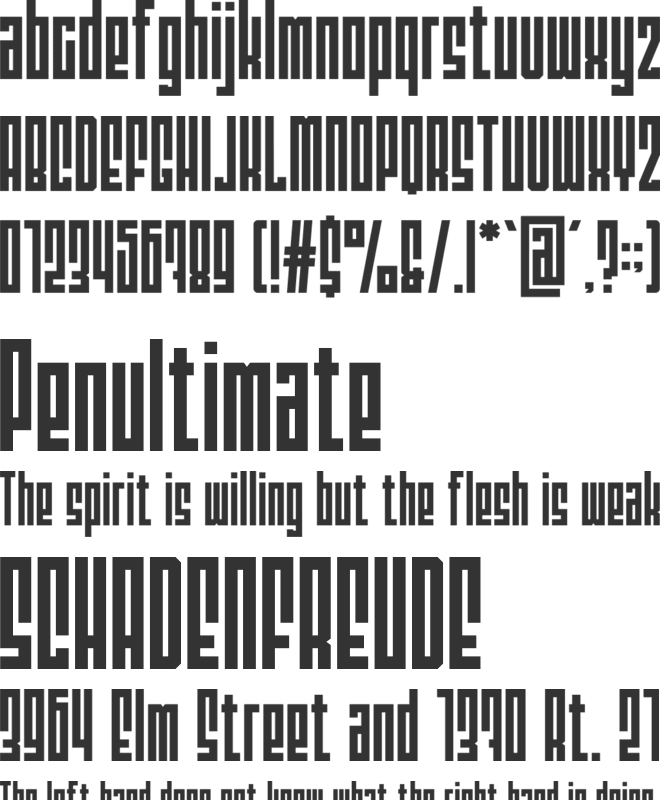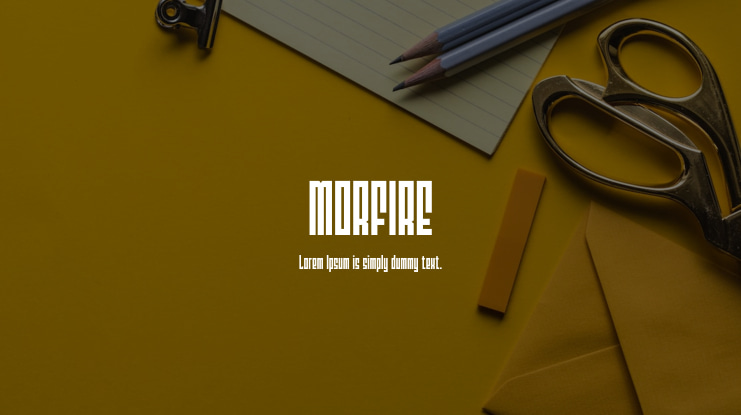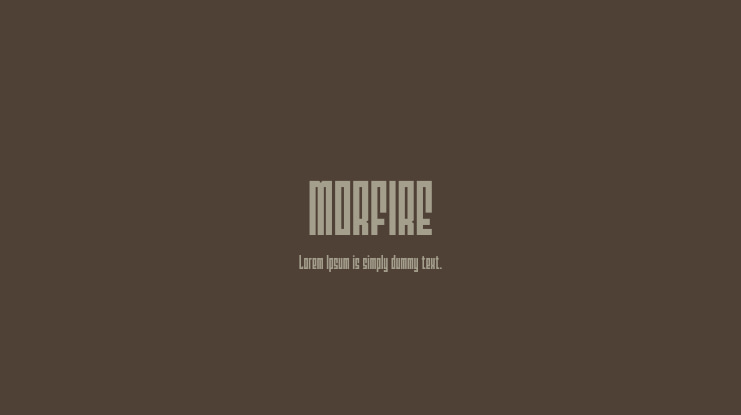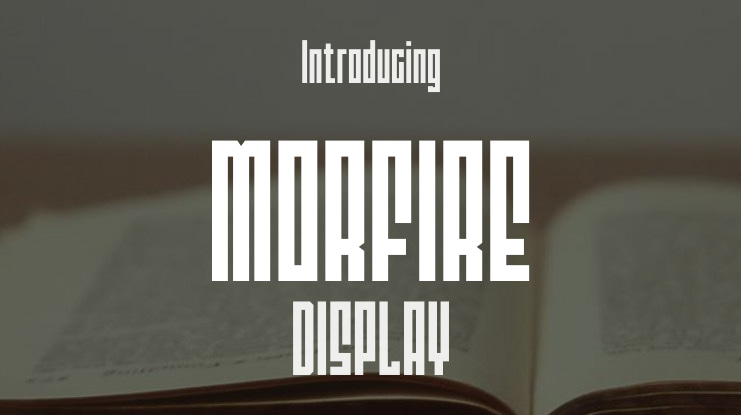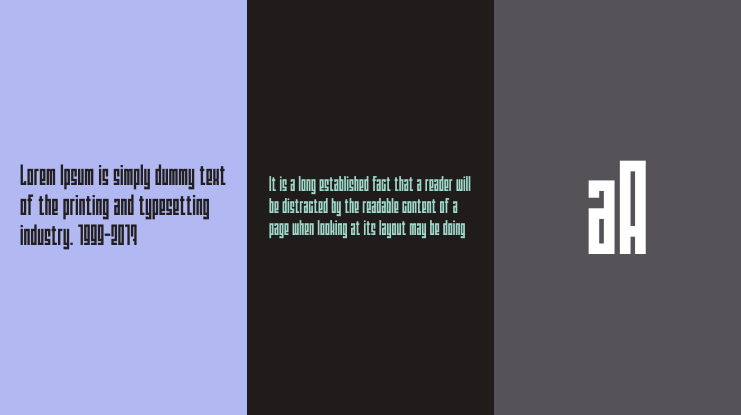
MORFIRE Font
Morfire - A Condensed Font
Morfire Font suitable for logos, posters, sport, modern advertising design, product labels, t-shirts, youtube thumbnail/cover, poster quote, editorial design, book / cover Title, website / blog, social media post, packaging designs and other designs.